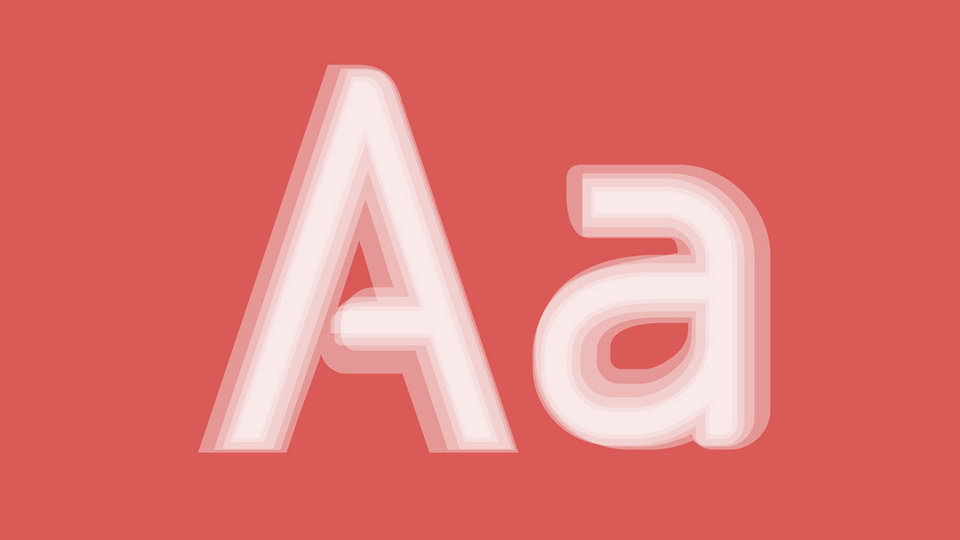
Download Oligopoly typeface, a modern sans serif font family in five weights with soft and rounded shapes. Oligopoly is a versatile typeface for variety projects.
Designer: Hyun Seok Choi